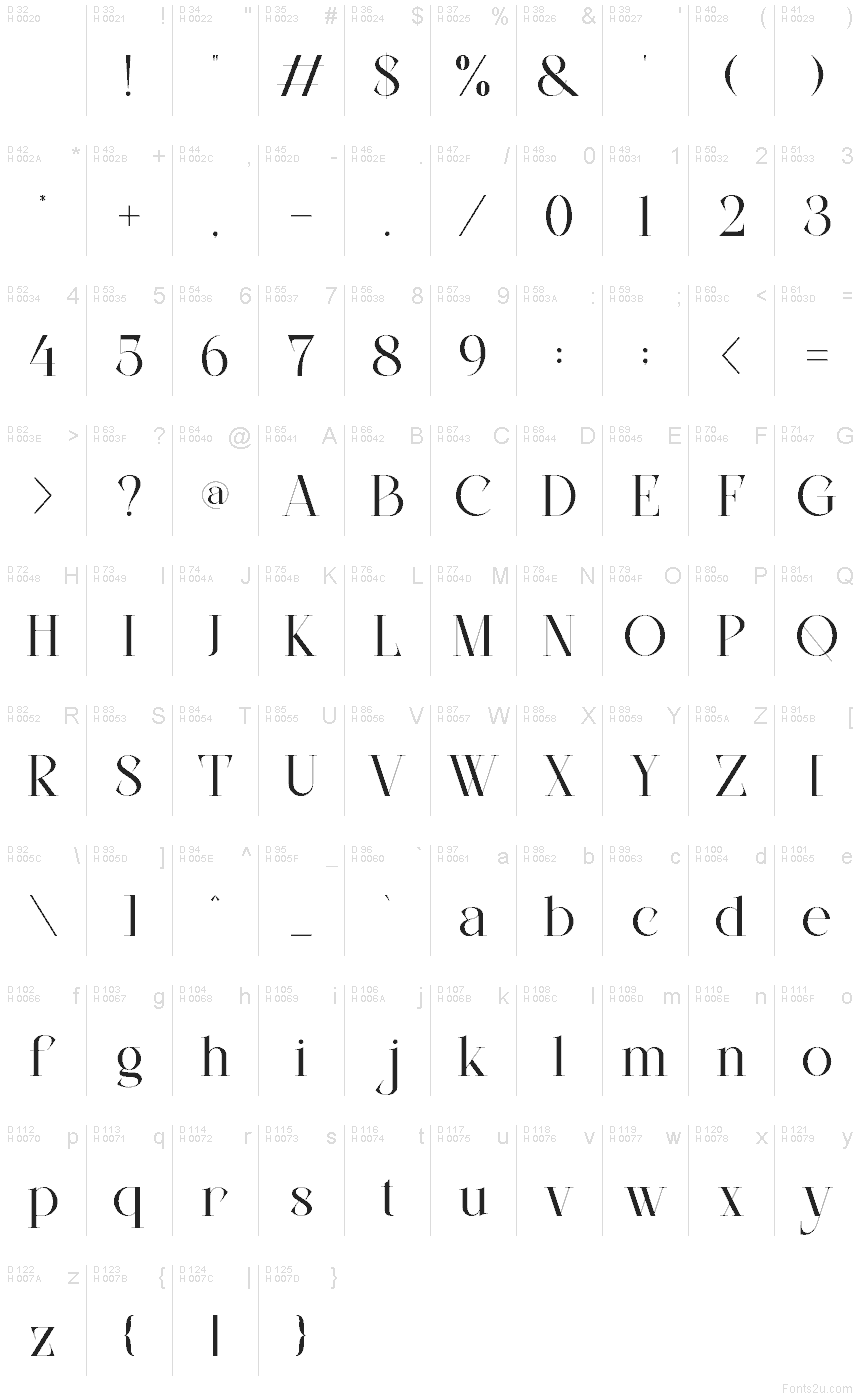
Frolase Regular
Frolase font by Ermedia Studio is a free high-contrast serif font. Its defining move is the dramatic dance between razor-thin hairlines and plush vertical strokes, sharpened by blade-like serifs that feel both glossy and precise. The curves flow with a couture rhythm, giving headlines a sculpted, editorial sheen without slipping into fussiness.
Using Frolase, you can bring luxe character to fashion branding, magazine covers, perfume or beauty packaging, event posters, wedding stationery, and bold social graphics. This free font shines when set large with a touch of extra tracking, letting those inky contrasts breathe. Pair it with a clean grotesk or geometric sans for body copy to keep the spotlight on its sculptural forms.